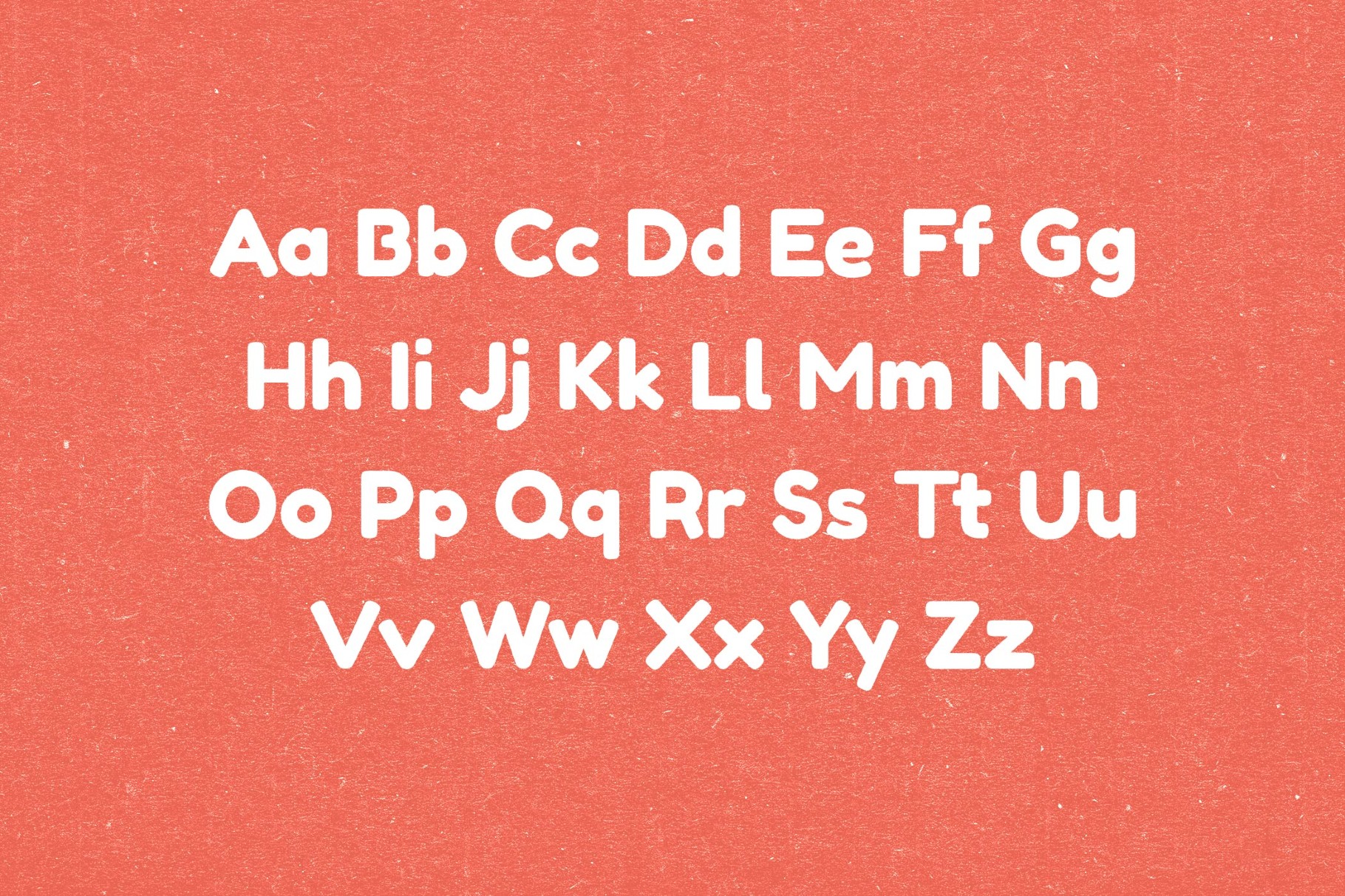
Fredoka One - Chunky Sans
Fredoka One is a chunky rounded sans with the charm of children’s TV idents, candy wrappers, and comic lettering drawn for instant smiles, all lit by the bright ease of a summer fair. This font works for kids’ branding, poster headlines, snack packaging, party invites, sticker designs, app graphics and social posts.